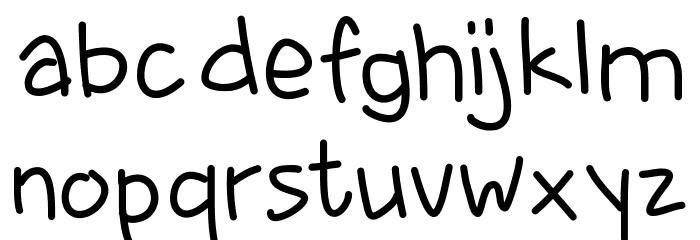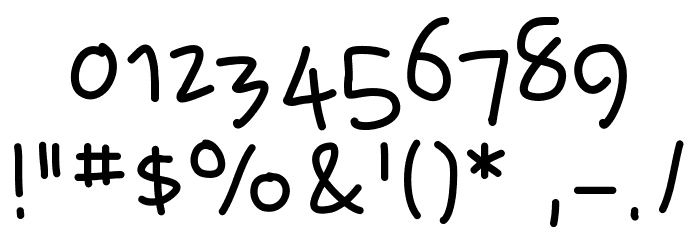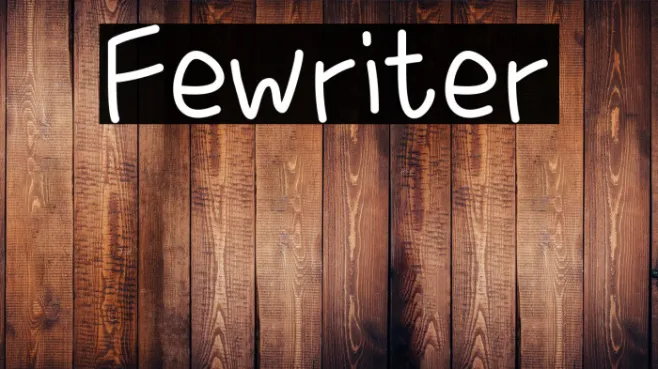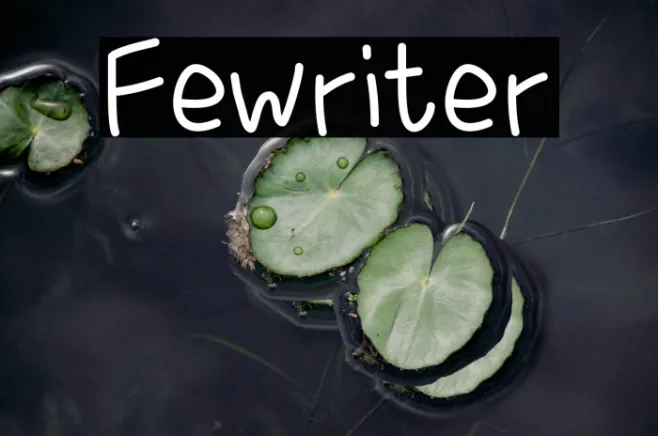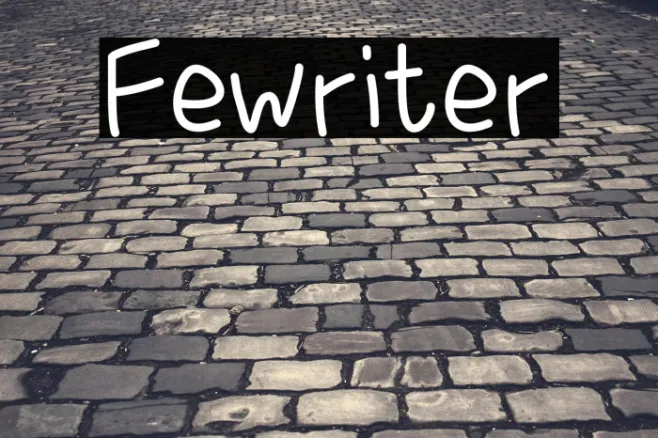
Fewriter Font
This font features a playful and casual handwritten style, characterized by its rounded and slightly irregular letterforms. The strokes are consistent in width, giving it a uniform appearance while maintaining a friendly and approachable vibe. The uppercase and lowercase letters are well-balanced, with a slight tilt that adds to the informal aesthetic. Numbers and special characters are designed to match the overall style, ensuring coherence across all glyphs. This font is ideal for projects that require a personal touch, such as invitations, greeting cards, or children's book illustrations. Its simplicity and readability make it versatile for various design applications.
A playful, handwritten font with rounded, consistent strokes and a casual feel.
- Proposed Projects: Ideal for invitations, greeting cards, children's books, and informal branding.
- Overall Style: Casual